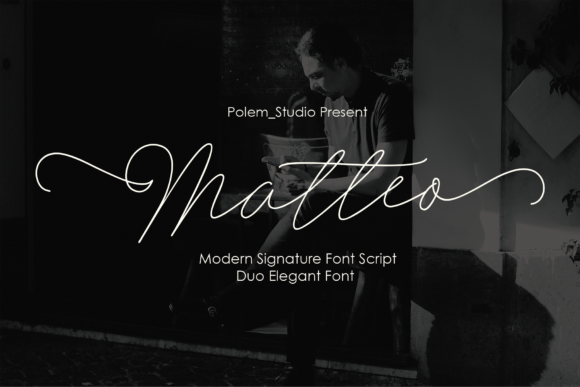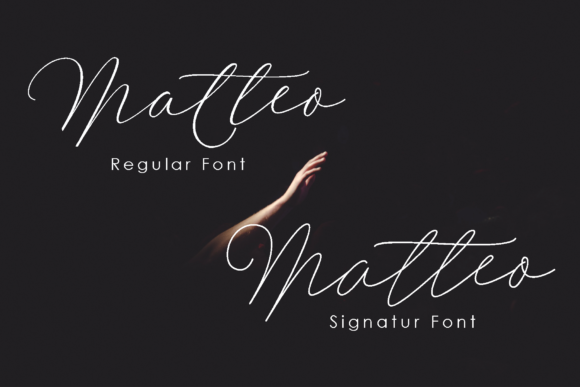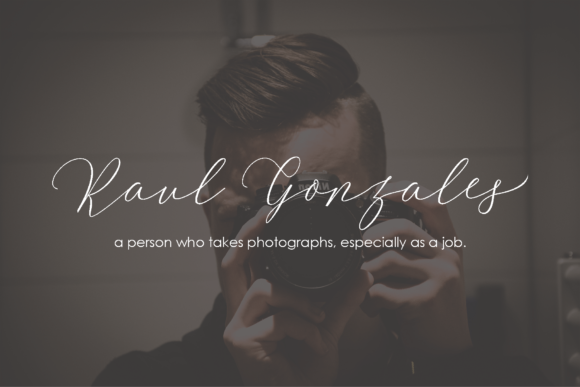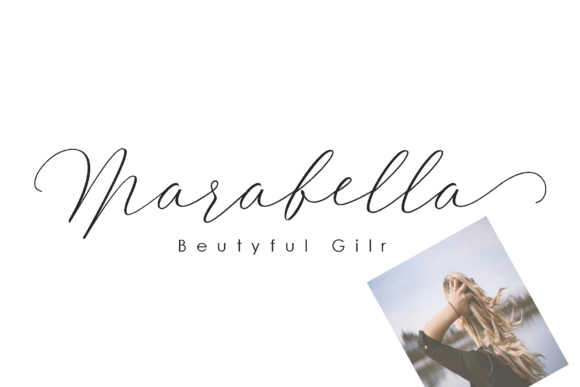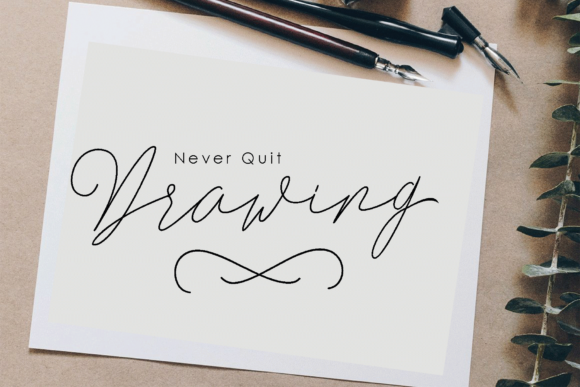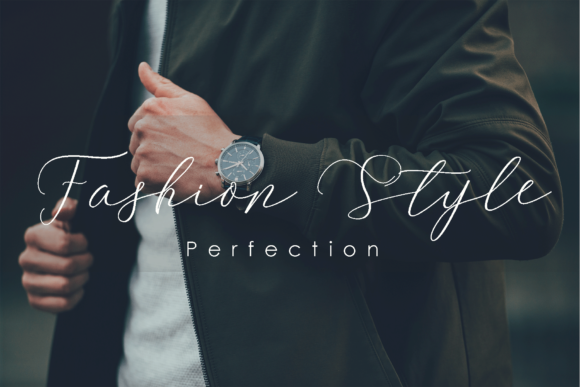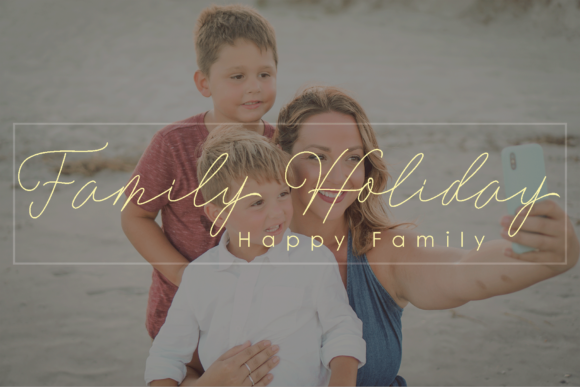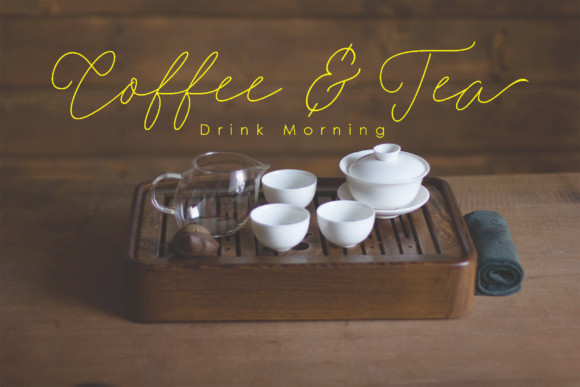
Matteo Duo Font
About Matteo Duo Font
The Matteo is an elegant font duo. Included are Matteo Lines and Matteo Regular. Both are stylish calligraphy typefaces with fine lines, varying baselines, and classic and elegant touches.